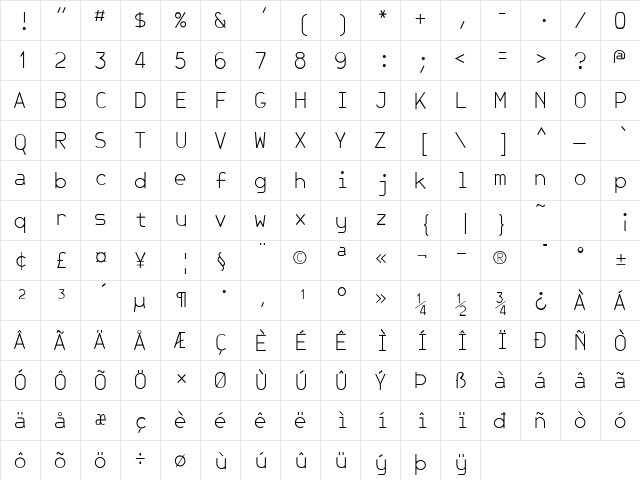
JetJaneMonoThin Book
Design Context for JetJaneMonoThin Typeface
JetJaneMonoThin brings the precise, column-aligned rhythm of monospaced typography to designs that value technical clarity and systematic order. The delicate stroke weight brings airiness and refinement to layouts.
A natural fit for code editors, technical documentation, developer-focused branding, and terminal-inspired UI.
Pro Tip: Pair JetJaneMonoThin with a proportional sans for UI contexts where code-style labels and regular body copy need to coexist.